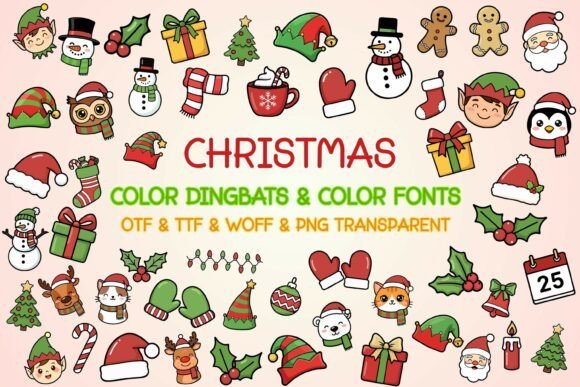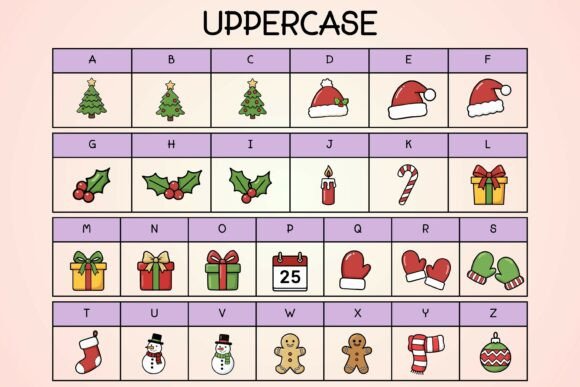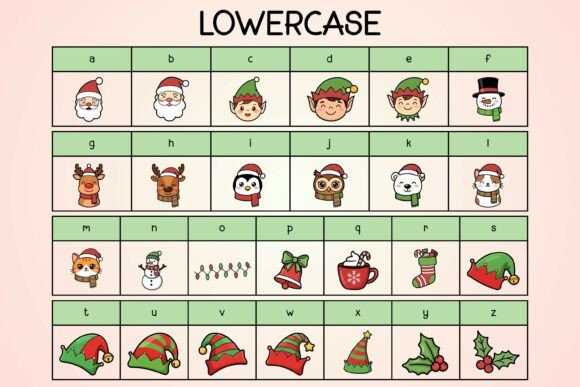
The Magic of Christmas Color Dingbats Font
Have you ever stared at a blank page, struggling to find the perfect way to express your holiday cheer? The spark of creativity is there, but the words just won’t come together. This is where the Christmas Color Dingbats Font comes to the rescue. This enchanting font is designed to infuse your designs with the essence of Christmas, making them truly unforgettable.
With the Christmas Color Dingbats Font, you’ll be able to add a dash of festive flair to your projects, from invitations and greeting cards to social media posts and more. Its versatility and color-rich design make it an invaluable tool for designers looking to elevate their holiday creations. Whether you’re a seasoned pro or just starting out, this font is sure to bring a smile to your face and a touch of magic to your designs.
Key Features of Christmas Color Dingbats Font
- Font Family: A set of festive dingbats and ornaments designed specifically for the holiday season.
- Size: The font family includes a range of sizes, from small ornaments to larger decorative elements, allowing for flexibility in design.
- Resolution: Optimized for high-resolution displays, ensuring crisp and clear visuals on screens and printed materials.
- Unique Characteristics: The font features a range of Christmas-themed elements, including snowflakes, holly, and bells, making it perfect for holiday designs.
Designer Review: Christmas Color Dingbats Font
✨ The Christmas Color Dingbats Font is a fun, playful addition to any holiday-themed design project. The font’s vibrant colors and creative dingbat illustrations will add a touch of whimsy to your designs. The font is well-suited for use in social media graphics, greeting cards, and other festive materials.
✨ One of the standout features of this font is its versatility. It includes a wide range of characters, including uppercase and lowercase letters, numbers, and punctuation marks. The font also includes a variety of dingbat illustrations, such as snowflakes, Christmas trees, and bells, which can be used to add visual interest to your designs.
✨ However, there are a few limitations to consider. ⚠️ The font may not be suitable for use in formal or professional designs, as it can come across as too playful or juvenile. Additionally, the font’s bold lines and bright colors may not be accessible for users with visual impairments.
The Christmas Color Dingbats Font is a fun and festive addition to any holiday-themed design project. While it may have some limitations, it is a great option for designers looking to add a touch of whimsy to their designs.
- Vibrant colors and creative dingbat illustrations
- Includes uppercase and lowercase letters, numbers, and punctuation marks
- Wide range of dingbat illustrations, including snowflakes, Christmas trees, and bells
For the most impact, use the Christmas Color Dingbats Font for titles, headings, and call-outs in your designs.
Consider using the font in combination with other festive elements, such as holly, snowflakes, or candy canes, to create a cohesive holiday look.
Remember to use the font in moderation, as it can be bold and eye-catching.